Tattoo font styles are more than just letters on skin—they’re a powerful form of personal expression that transforms words into living art. Each typeface carries its own unique personality, telling a story beyond the literal meaning of the text. From bold and aggressive scripts to delicate and intricate calligraphy, tattoo fonts have evolved into a sophisticated art form that speaks volumes about individual identity and artistic vision.
Understanding Tattoo Font Styles
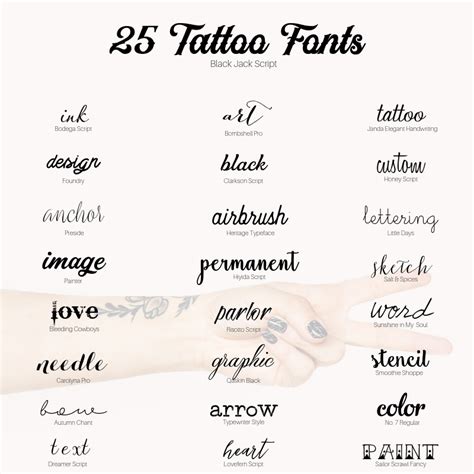
The world of tattoo font styles is incredibly diverse, offering artists and enthusiasts a wide range of typographic choices that can dramatically alter the message and aesthetic of a tattoo. Different font styles can convey emotions, cultural backgrounds, and personal narratives in ways that go far beyond simple text.
Popular Tattoo Font Categories
When exploring tattoo font styles, several key categories stand out:
- Script Fonts: Elegant, flowing typefaces that mimic handwritten cursive writing
- Blackletter Fonts: Gothic-inspired designs with intricate, medieval-looking characters
- Tribal Fonts: Bold, geometric designs inspired by indigenous artistic traditions
- Minimalist Fonts: Clean, simple typefaces that focus on clarity and modern aesthetics
Choosing the Right Tattoo Font Style
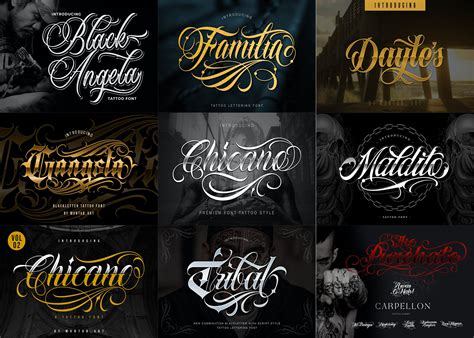
Selecting the perfect tattoo font style involves considering several crucial factors:
- Personal meaning and emotional connection
- Body placement and available space
- Skin tone and potential visibility
- Long-term aesthetic appeal
Cultural Significance of Font Styles
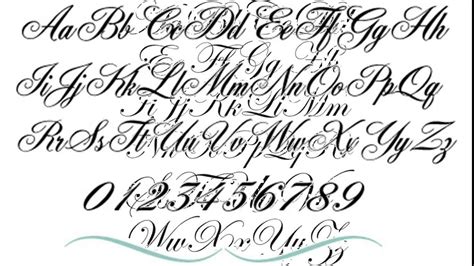
Different tattoo font styles carry deep cultural meanings. For instance, traditional Japanese kanji characters, Arabic calligraphy, and Celtic scripts each bring unique historical and artistic contexts to tattoo design.
Technical Considerations for Tattoo Fonts
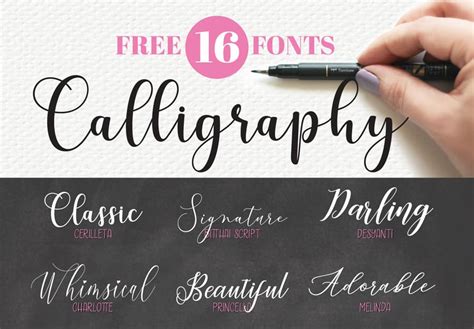
When selecting a tattoo font style, consider these technical aspects:
- Readability at different sizes
- Line thickness and potential aging
- Complexity of the design
- Potential distortion over time
The artistry of tattoo fonts lies in their ability to transform simple text into a deeply personal statement. Each curve, line, and stroke contributes to a unique visual narrative that becomes an integral part of one's personal expression.
How do I choose the right tattoo font?
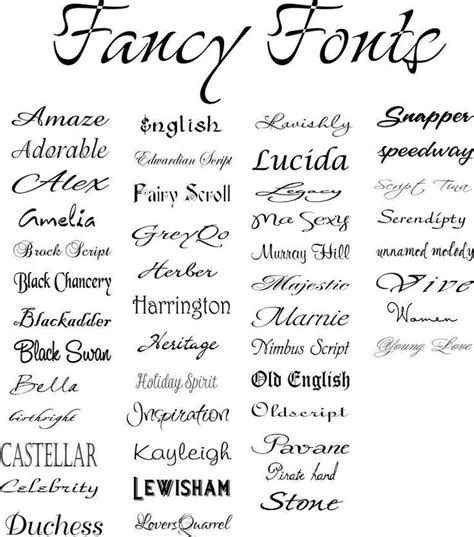
Consider your personal style, the meaning behind the text, body placement, and consult with a professional tattoo artist for expert advice.
Do font styles affect tattoo longevity?
Yes, complex fonts with very thin lines may blur or fade more quickly over time, so choose fonts with adequate line thickness.
Can I customize a tattoo font?
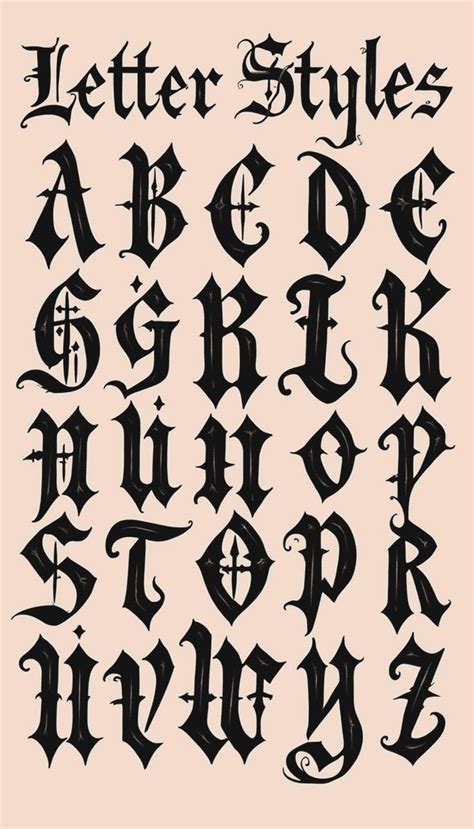
Absolutely! Many tattoo artists can modify existing fonts or create custom typography that perfectly matches your vision.